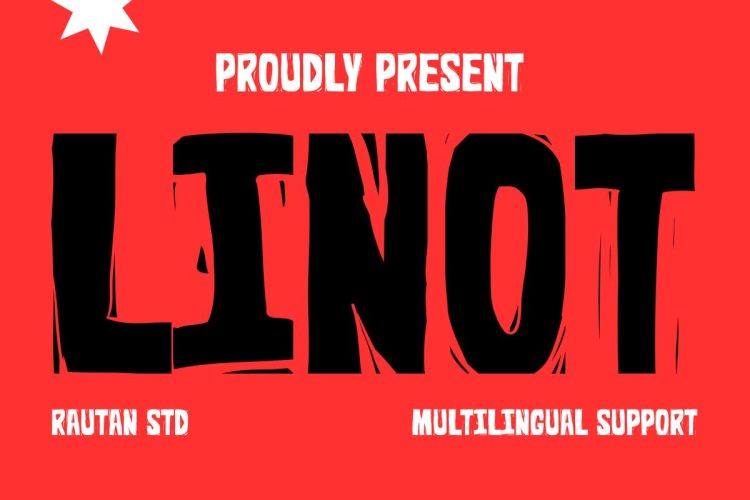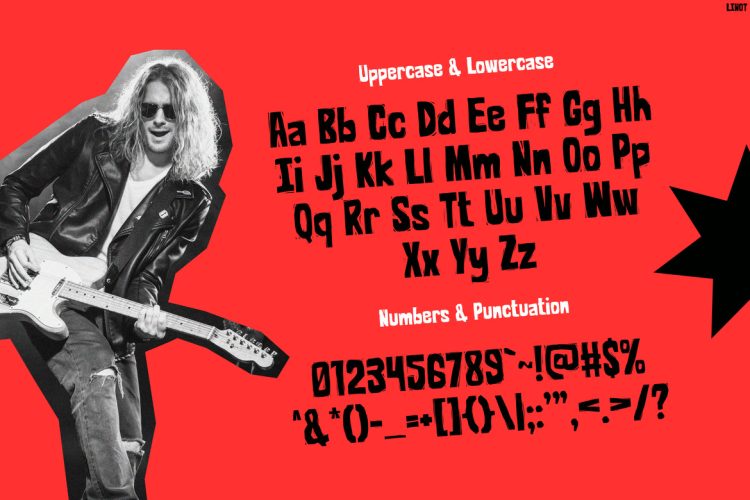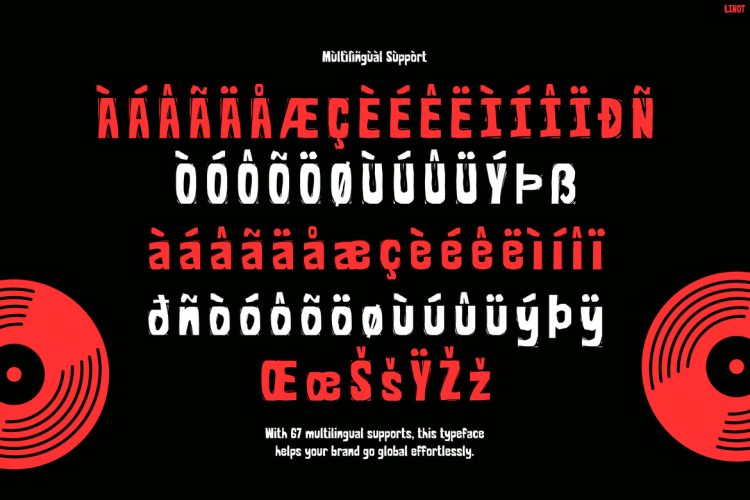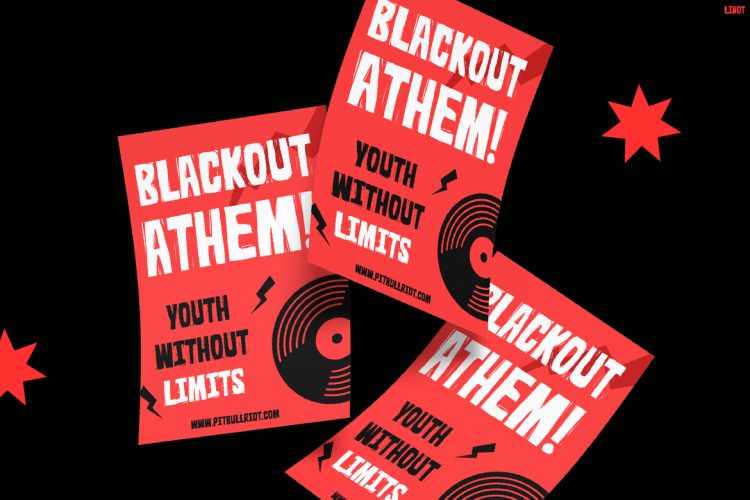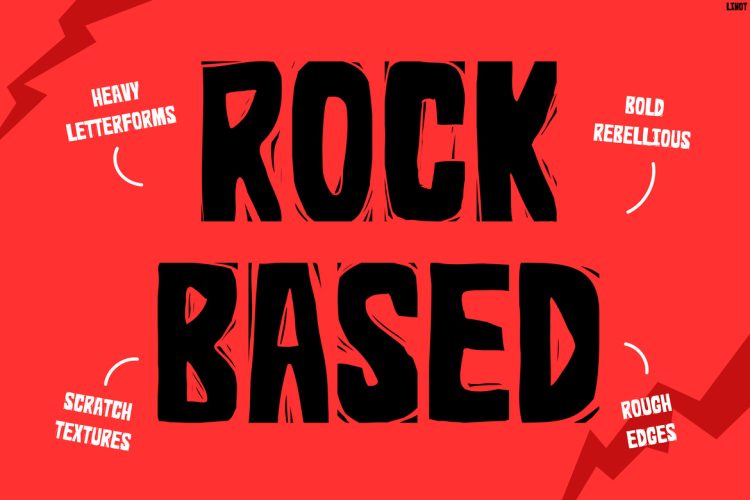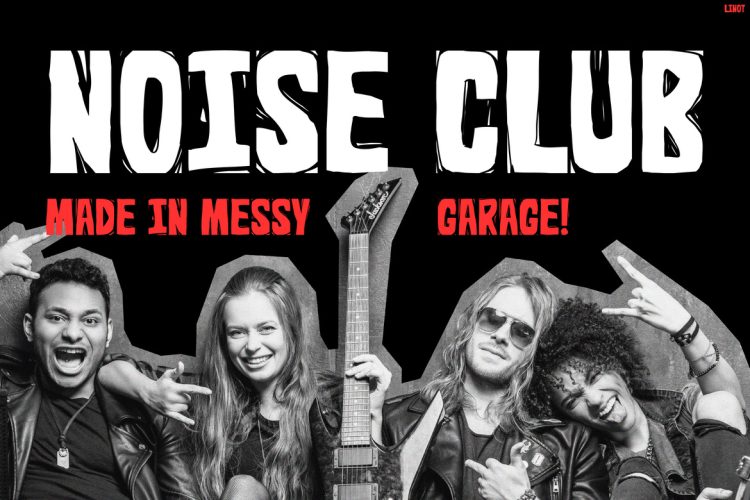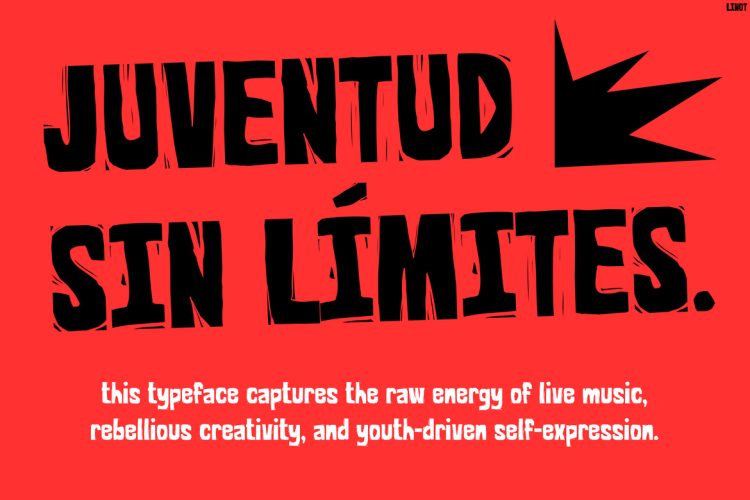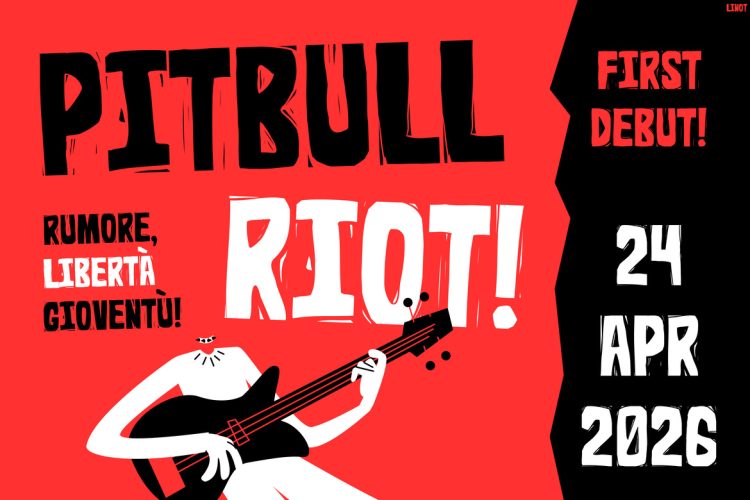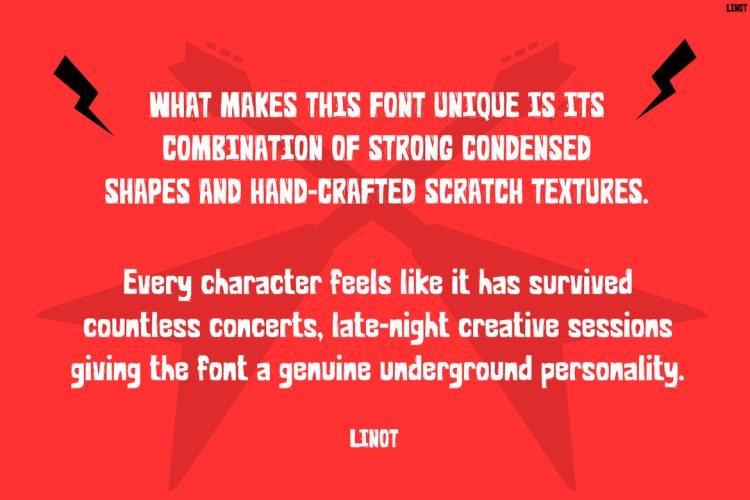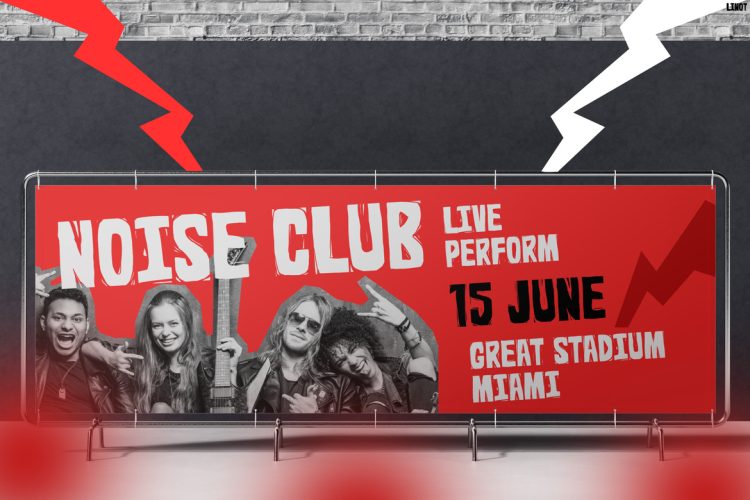
Music Font Linot โ Raw, Loud & Rebellious Typography for Underground Culture
Music Font Linot is a fierce display font built to represent the explosive energy of punk, rock, and underground music scenes. Not only does it feature bold condensed letterforms, but it also includes rough edges and chaotic details that create an authentic DIY attitude. Moreover, its aggressive visual style delivers a powerful impact from the first glance. In addition, the distressed appearance gives every design a rebellious and fearless personality. Furthermore, Linot maintains strong readability while preserving its wild character. As a result, posters, album artwork, and promotional graphics become louder, stronger, and more memorable. Additionally, with support for 67 languages, Linot allows musicians and creators worldwide to share their message without boundaries.
Music Font Perfect For
Linot is designed for creators who refuse to follow ordinary rules and want a bold visual identity. Whether you are creating concert posters, band logos, album covers, festival banners, streetwear graphics, merchandise, or social media campaigns, this font delivers intense underground vibes. Likewise, its handcrafted imperfections add a raw human touch to every composition. Meanwhile, its condensed shape maximizes space and keeps headlines dominant. Consequently, your designs gain a stronger attitude and a more unforgettable appearance. At the same time, Linot performs beautifully across both digital and printed formats.
Who Can Use It?
- Rock & Punk Bands
- Music Festival Organizers
- Album Cover Designers
- Streetwear & Apparel Brands
- Merchandise Creators
- Independent Artists & Musicians
- Content Creators
- Graphic Designers & Creative Studios
Unleash The Noise with Linot